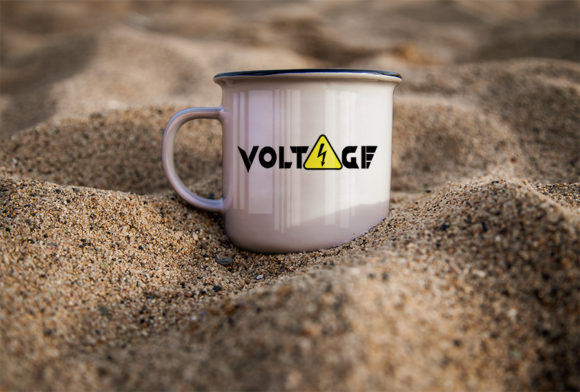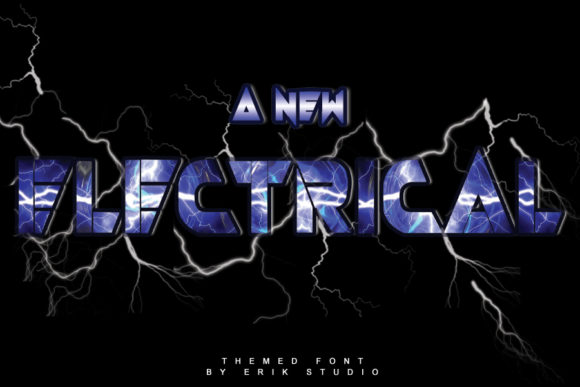
The Cosmic Quest for the Perfect Font: Discovering Galaxy
I’ll never forget the late nights spent scrolling through font libraries, searching for that one perfect typeface to bring my design project to life. My client wanted a bold, modern look that would make their brand stand out, but everything I found seemed to fall flat. That was until I stumbled upon Galaxy, a game-changing display font that has since become a staple in my design toolkit.
A First Impression: What Makes Galaxy Shine
Galaxy is more than just a font – it’s an experience. With its sleek lines and futuristic vibe, it’s the perfect choice for designers, crafters, and creative hobbyists looking to add a touch of cosmic magic to their work. Here are just a few things that make Galaxy truly special:
- ✨ Bold and modern design that’s perfect for headlines, titles, and statements
- ✅ Highly legible even at smaller sizes, making it versatile for various design applications
- 💫 Extensive character set with OpenType features, glyphs, and stylistic alternates to experiment with
While Galaxy has won my heart, it’s not without its quirks. Here’s my honest take:
- ✨ The font’s bold, confident look instantly elevates any design
- ✅ Easy to pair with other fonts, thanks to its clean and simple design
- 💫 OpenType features offer endless possibilities for creative experimentation
- 🤔 Limited suitability for body text – Galaxy shines brightest as a display font
- ⚠️ Some glyphs may require manual adjustment for optimal spacing and alignment
The Story Behind Galaxy: Designer Inspiration
Galaxy was born from a designer’s passion for the cosmos and a desire to create a font that would evoke a sense of wonder and adventure. Inspired by the stars, planets, and galaxies of our universe, the font’s creator aimed to craft a typeface that would be both bold and beautiful.
| Font Name | Galaxy Font |
| Author | erik studio |
Q: What makes Galaxy a great choice for display text?
A: Galaxy’s bold, modern design and high legibility make it perfect for headlines, titles, and statements that demand attention.
Q: Can I use Galaxy for body text?
A: While Galaxy can be used for body text, it’s primarily designed as a display font and may not be the best choice for longer blocks of text.
Q: Does Galaxy support OpenType features?
A: Yes, Galaxy includes OpenType features like stylistic alternates, glyphs, and swashes to help you get creative with your design.
Q: Is Galaxy suitable for branding and logo design?
A: Absolutely! Galaxy’s unique, cosmic vibe makes it an excellent choice for brands and logos that want to stand out and make a statement.